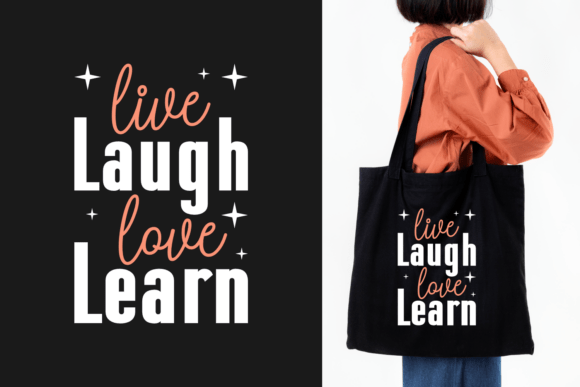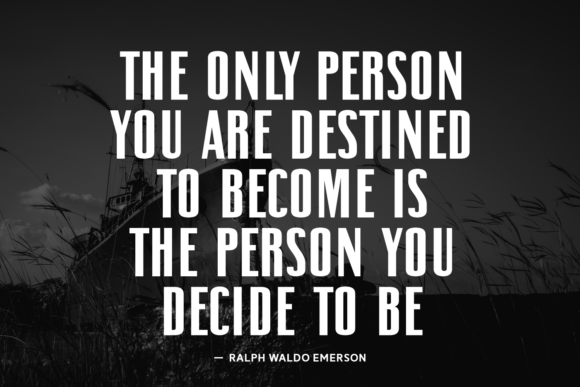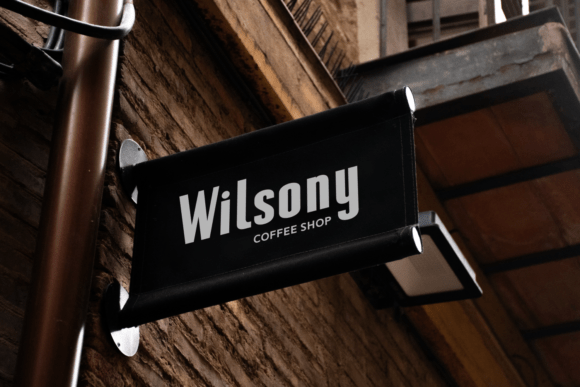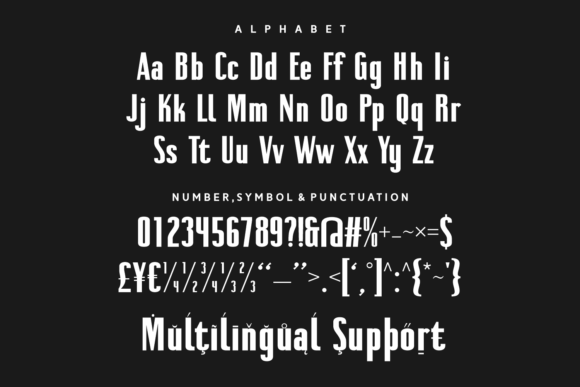
Introduction to Mirror Window Font
This sans serif font boasts a strong, modern, and impactful character, making it a valuable addition to any designer’s toolkit. With its sleek and contemporary feel, Mirror Window Font is well-suited for headlines and posters that demand attention and leave a lasting impression. Whether you’re working on a high-quality design project or simply want to elevate your personal brand, Mirror Window Font is an excellent choice for designers looking to make a statement.
Key Features of Mirror Window Font
- Unique, reflective design inspired by the concept of a mirror window, ideal for creative projects that require a touch of elegance and sophistication.
- Designed to be highly versatile, the Mirror Window Font can be used in a wide range of creative projects, from logos and branding to packaging and advertising.
- Its reflective design elements can add a sense of depth and visual interest to any design, making it a valuable asset for designers and creatives.
Honest Review: Mirror Window Font
I recently came across the Mirror Window Font, and I’m excited to share my thoughts on this design resource. The first thing that caught my attention was the unique aesthetic of the font. It has a modern, sleek feel that’s perfect for any creative project.
- ✨ High-quality design: The Mirror Window Font is well-crafted, with clean lines and a professional look.
- ⚠️ Limited character set: The Mirror Window Font has a limited character set, which may not be suitable for complex texts or paragraphs.
- ⚠️ Not ideal for small font sizes: The font may become pixelated when used at small font sizes, which could affect the overall quality of your design.
Overall, I’m impressed with the Mirror Window Font. While it may have some limitations, it’s a great resource for designers looking for a high-quality, free font. With a little creativity, you can achieve amazing results with this design resource.
For optimal results, use the Mirror Window Font in conjunction with a high-quality design. Experiment with different font sizes, colors, and styles to create a unique and visually appealing design.
- Designing eye-catching social media graphics
- Creating unique presentations and reports
- Developing high-end branding materials